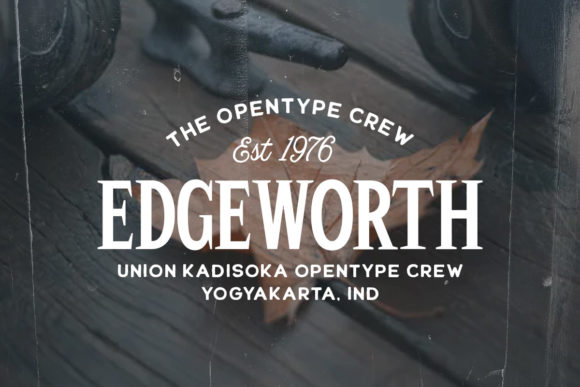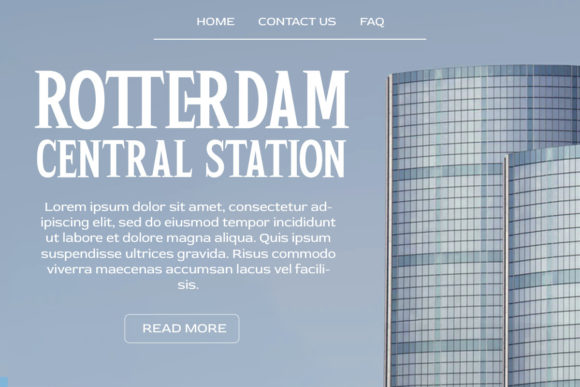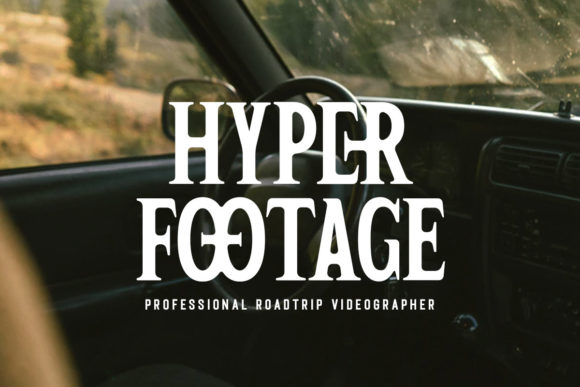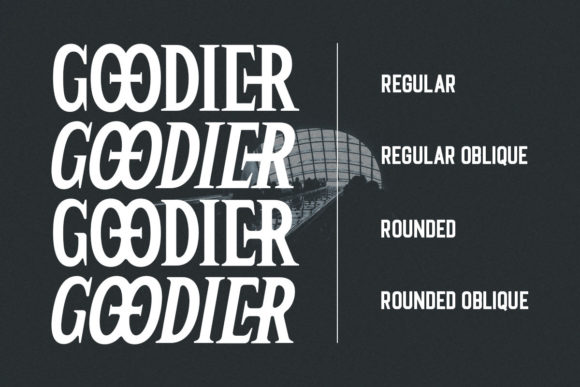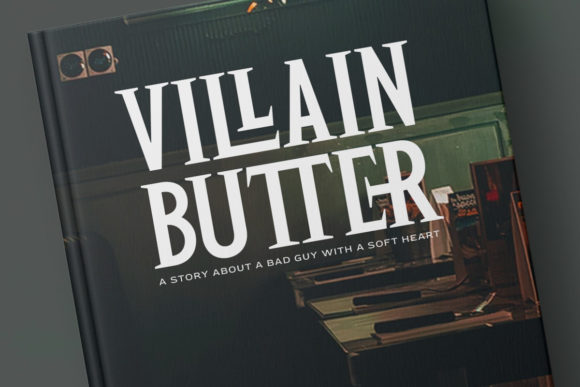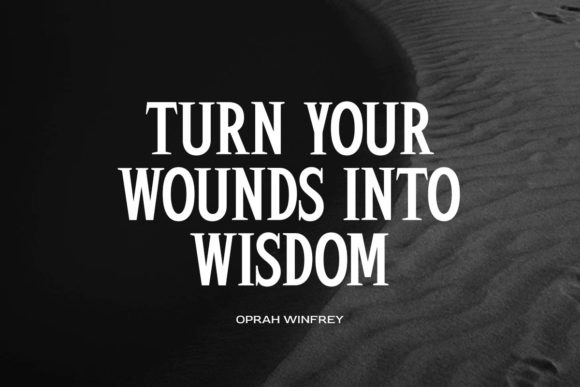
The Power of Goodier Font: Elevate Your Designs with Confidence
I’ll never forget the time I was working on a branding project for a luxury client, and I was stuck on finding the perfect font. The client wanted something classic, yet assertive; elegant, yet attention-grabbing. I scoured the internet, tried countless fonts, but nothing seemed quite right. That was until I stumbled upon Goodier Font. It was like a breath of fresh air – the perfect blend of sophistication and confidence. In this article, I’ll share my experience with Goodier Font, its features, and how to make the most of it in your designs.
An Honest Review of Goodier Font
So, what makes Goodier Font so special? Let’s dive into the good stuff! 😊
- ✨ Classic serif design: Goodier Font boasts a timeless, classic serif design that’s perfect for a wide range of applications, from luxury branding to crafting.
- ✅ Assertive and elegant: This font exudes confidence and sophistication, making it ideal for projects that require a touch of elegance.
- 💡 Highly versatile: Goodier Font can be used for various design projects, including cards, labels, and more.
Now, no font is perfect, and Goodier Font has a few minor quirks:
- 🤔 Limited availability of certain glyphs: Some users have reported that certain glyphs or special characters are not readily available.
- ⚠️ May require adjustment for digital use: As with any serif font, Goodier Font may require some adjustments to work optimally in digital formats.
The Story Behind Goodier Font
Goodier Font was designed with the intention of creating a versatile, classic serif font that would meet the needs of designers and crafters. Inspired by traditional typography, the font’s creator aimed to produce a clean, elegant, and assertive design that would elevate a wide range of projects.
| Font Name | Goodier Font |
| Author | letterhend |
| What is Goodier Font best suited for? | Goodier Font is ideal for a variety of design projects, including luxury branding, crafting, cards, labels, and more. |
| Is Goodier Font available in multiple weights? | Goodier Font comes in a range of weights, making it versatile for various design applications. |